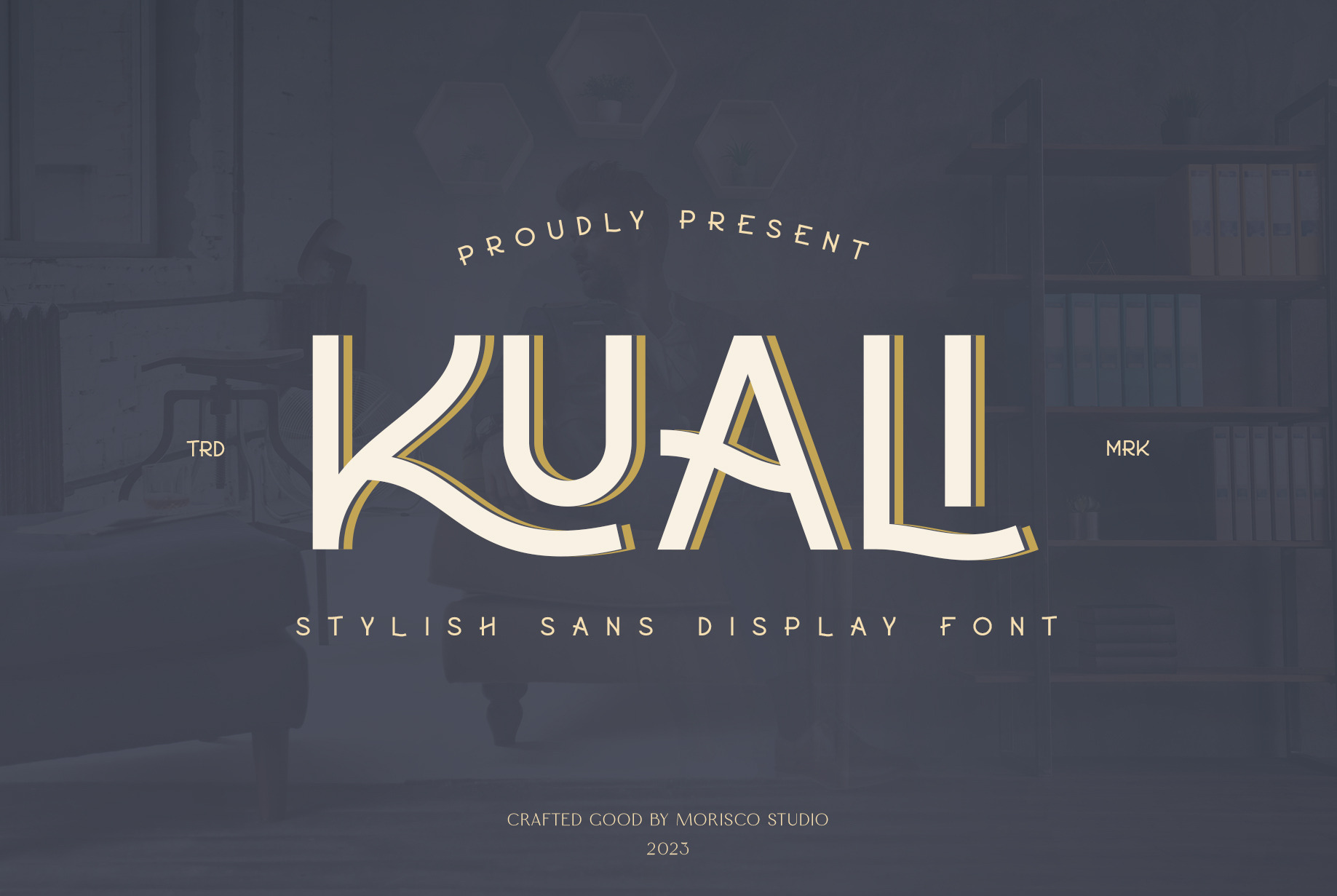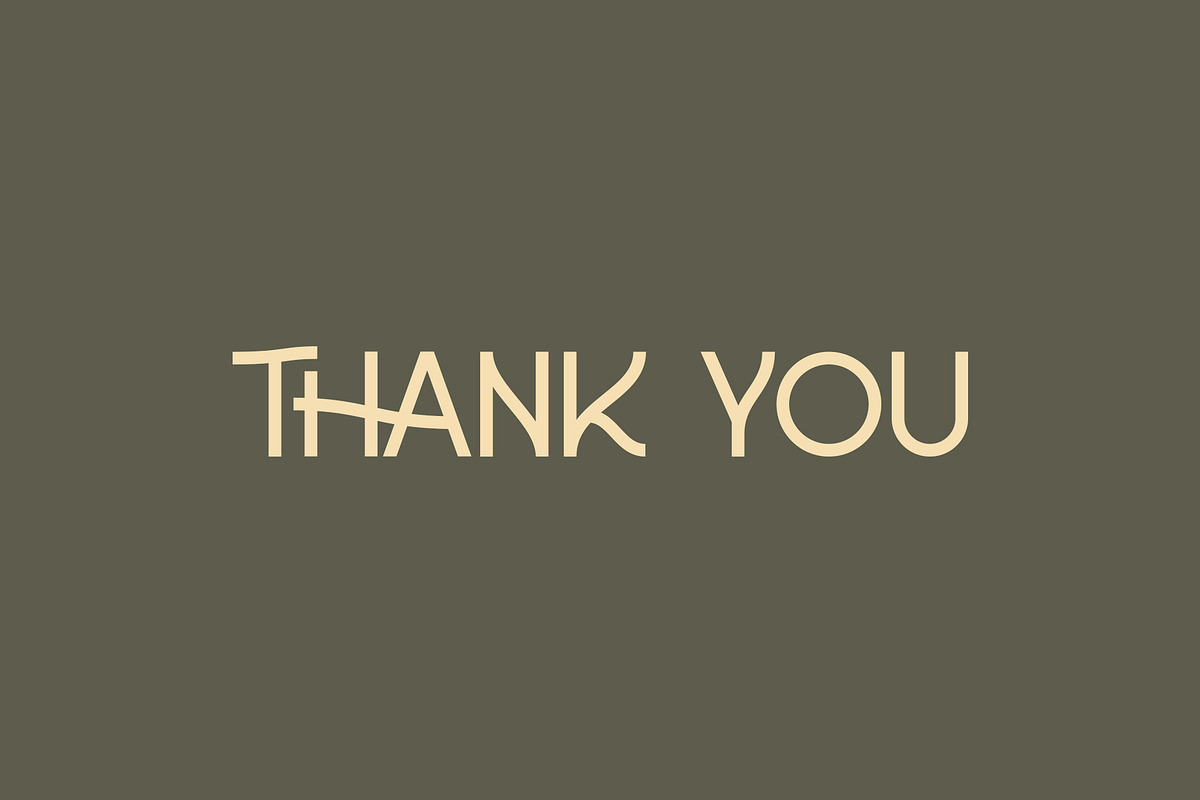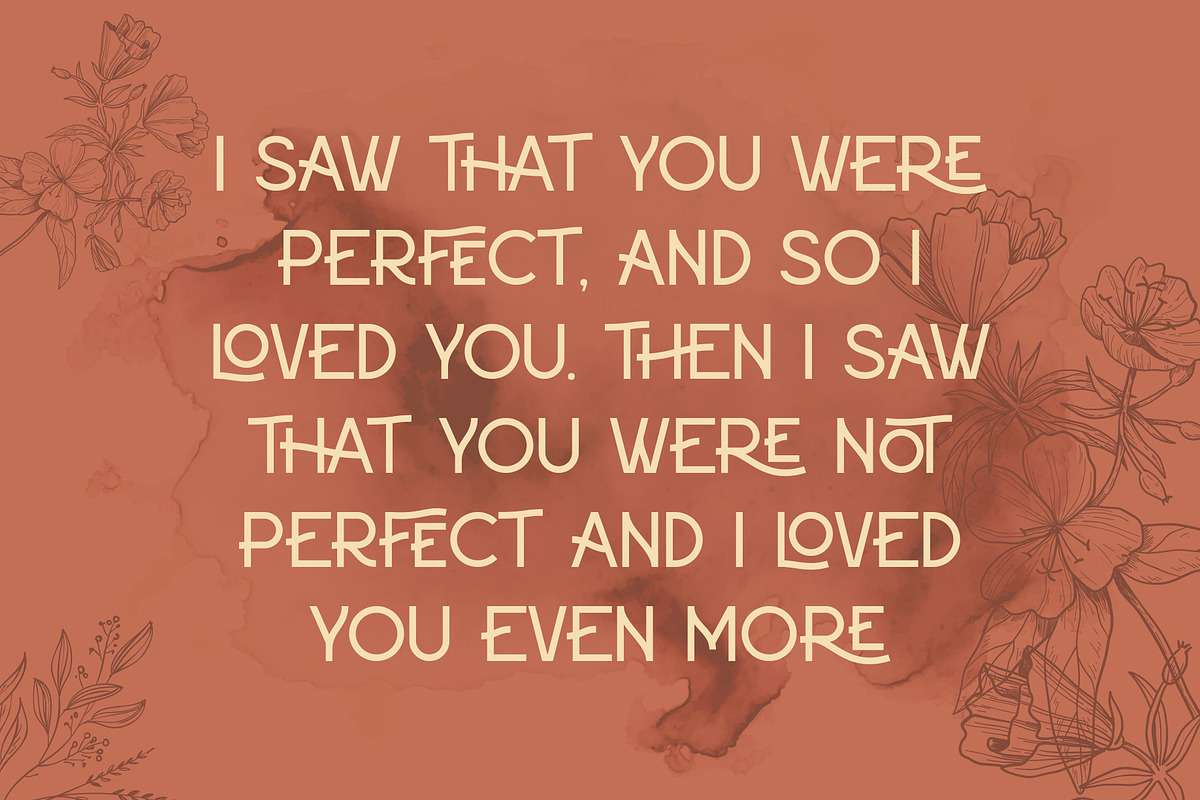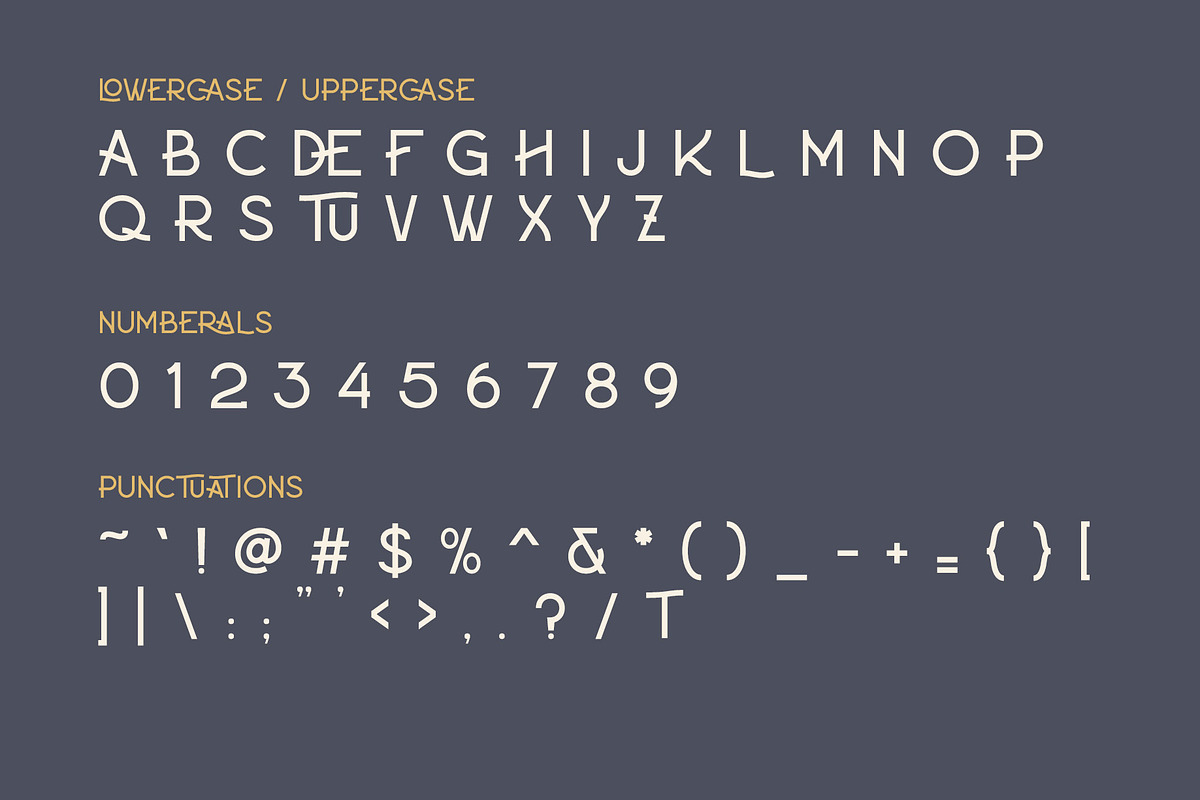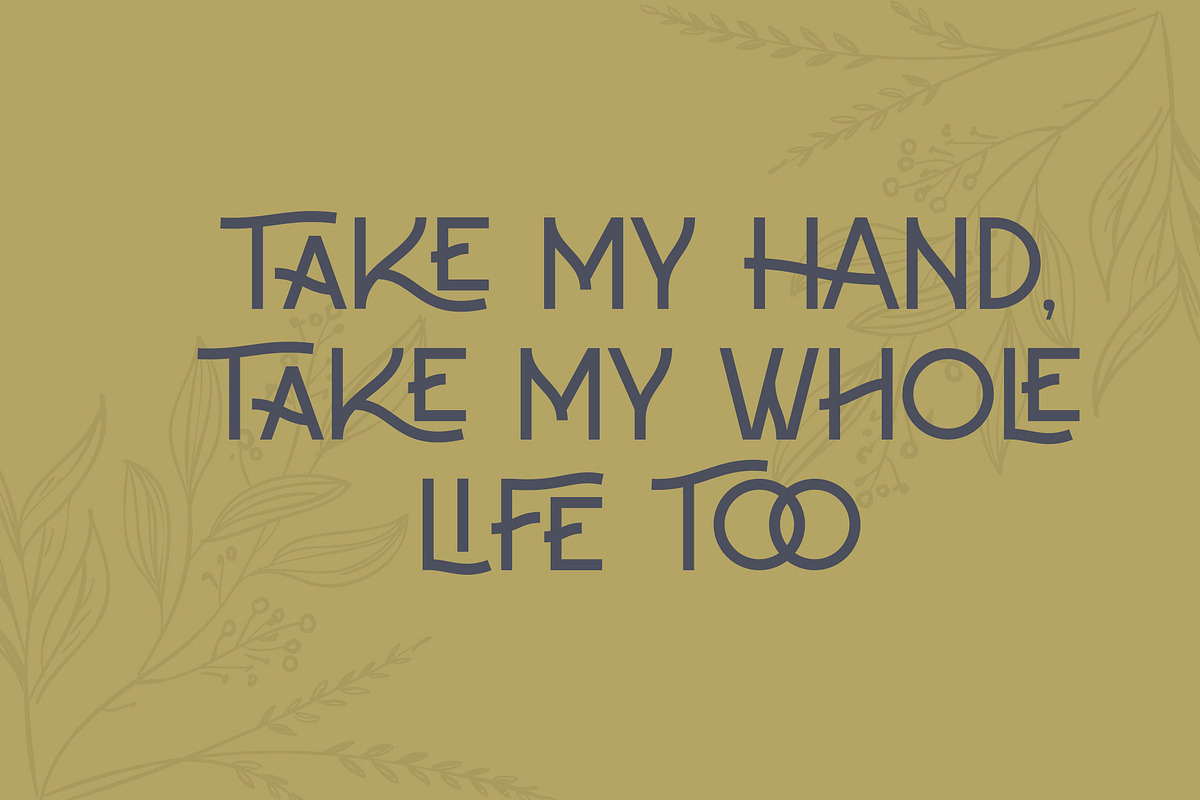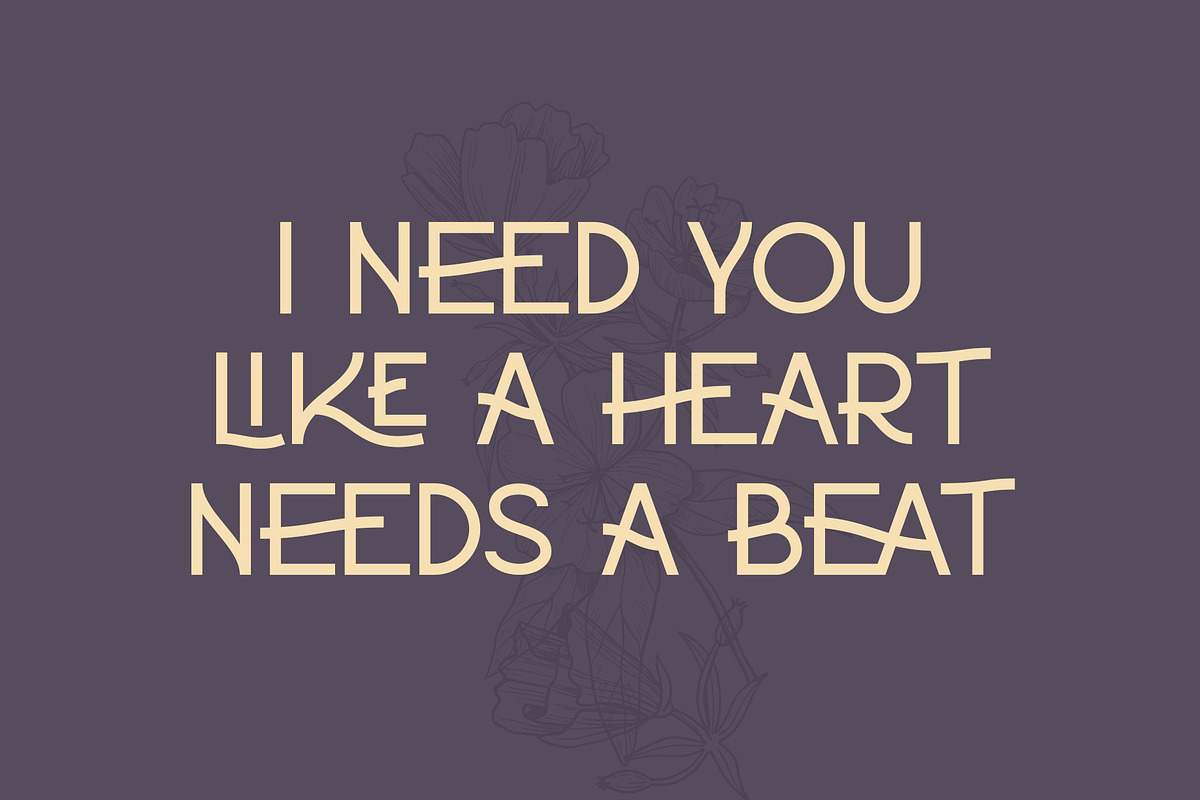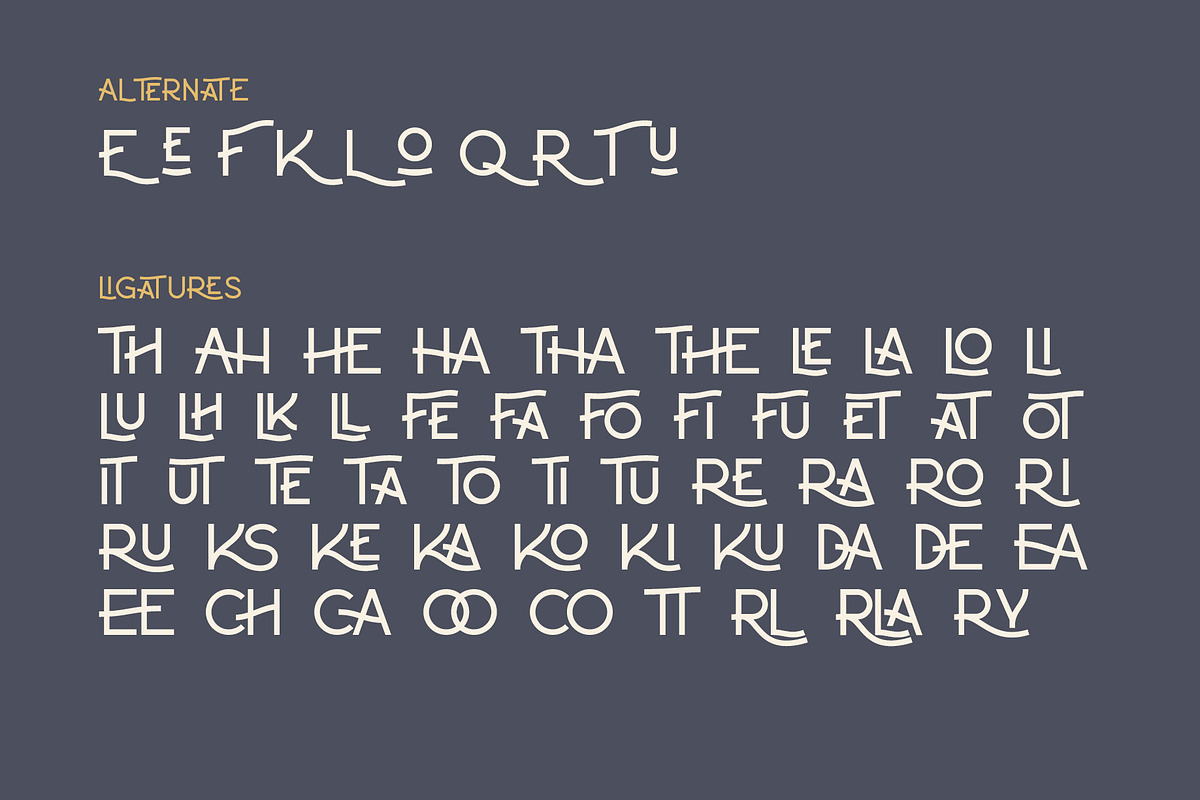
Kuali - Stylish Sans Display Font
Kuali is a Stylish Sans Display Font with a unique character designed by Morisco Studio. This typeface is well-suited for headlines and any project, like branding, print templates, logos, and more.